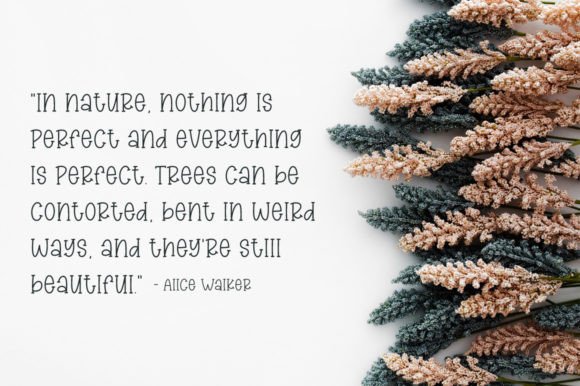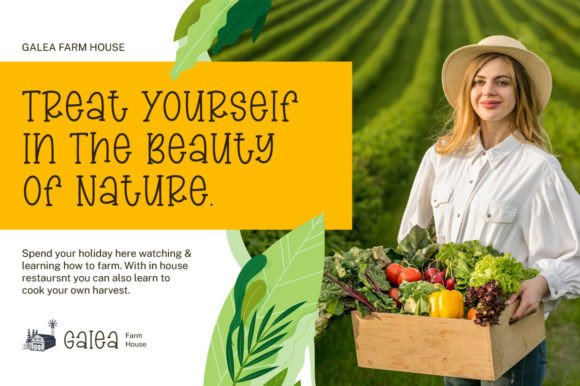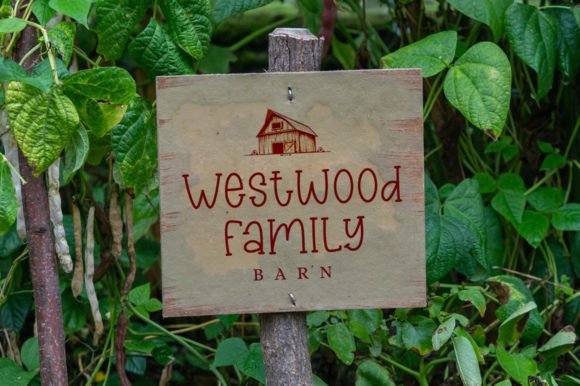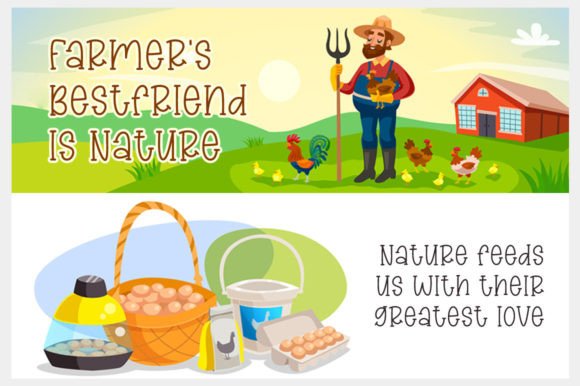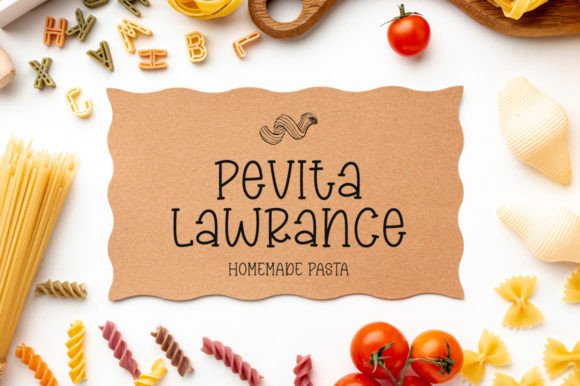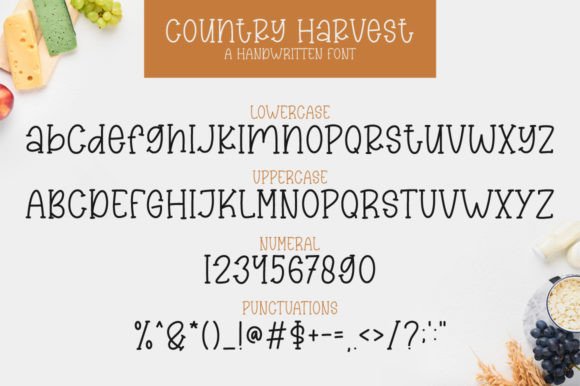
Introducing Country Harvest Font: The Perfect Choice for Chalkboard Quotes and Teaching Materials
Are you a designer, crafter, or educator looking for a font that can add a personal and realistic touch to your designs? Look no further than Country Harvest Font! This cute and simple-lettered serif font is perfect for creating chalkboard quotes, teaching materials, and other designs that require a authentic, hand-written look.
What is Country Harvest Font?
Country Harvest Font is a serif font that is designed to mimic the look of traditional chalkboard writing. Its simple, yet elegant lettering style makes it perfect for creating a wide range of designs, from inspirational quotes to educational materials. The font’s authentic look and feel will add a personal touch to your designs, making them stand out from the crowd.
Key Features of Country Harvest Font
- Cute and Simple Lettering Style: Country Harvest Font features a cute and simple lettering style that is perfect for creating chalkboard quotes and teaching materials.
- Serif Font: The font’s serif style adds a touch of elegance and sophistication to your designs, making them perfect for a wide range of applications.
- Authentic Look: The font’s authentic look and feel will add a personal and realistic touch to your designs, making them stand out from the crowd.
- Easy to Read: The font is easy to read, making it perfect for creating teaching materials, such as worksheets, handouts, and presentations.
Uses for Country Harvest Font
Country Harvest Font is a versatile font that can be used for a wide range of design projects, including:
- Chalkboard Quotes: Create inspirational and motivational quotes that look like they were written on a chalkboard.
- Teaching Materials: Create teaching materials, such as worksheets, handouts, and presentations, that have a personal and realistic touch.
- Crafting Projects: Use the font to create signs, labels, and other crafty projects that require a personal touch.
- Social Media Graphics: Create social media graphics, such as Facebook posts and Instagram stories, that have a personal and realistic look.
Why Choose Country Harvest Font?
There are many fonts available that can be used for creating chalkboard quotes and teaching materials, but Country Harvest Font stands out from the crowd. Here are a few reasons why:
- Unique Lettering Style: The font’s unique lettering style is unlike any other font available, making it perfect for designers and crafters who want to create unique and eye-catching designs.
Tips for Using Country Harvest Font
Here are a few tips for using Country Harvest Font:
- Use it with Chalkboard Backgrounds: Use the font with chalkboard backgrounds to create designs that look like they were written on a chalkboard.
- Experiment with Colors: Experiment with different colors to find the perfect look for your design.
- Use it with Other Fonts: Use the font with other fonts to create unique and eye-catching designs.